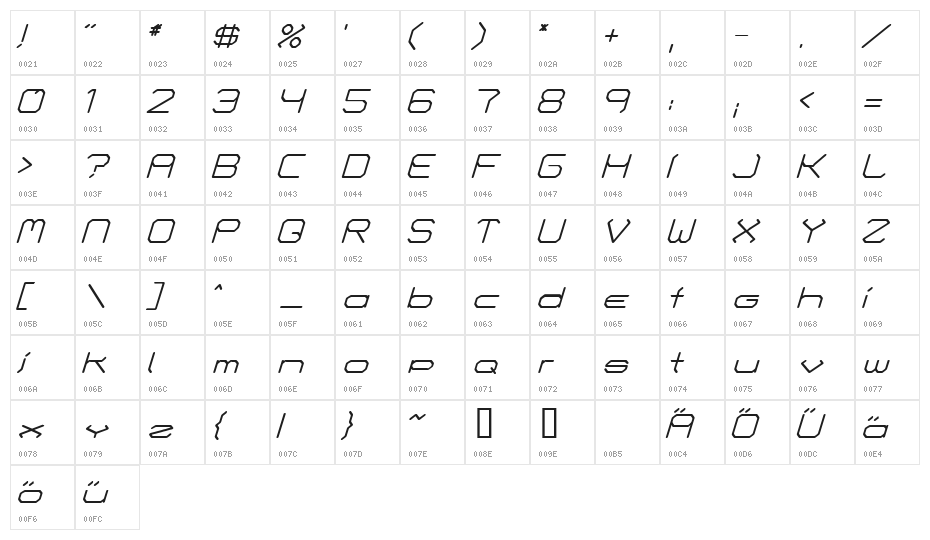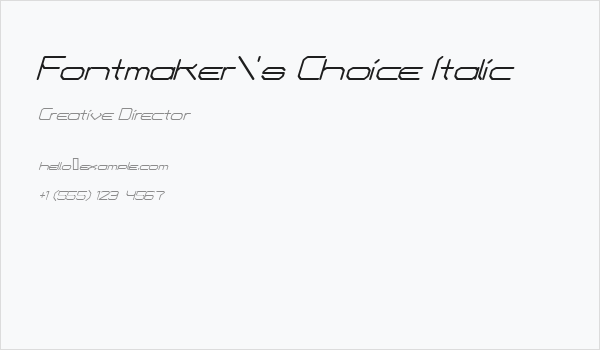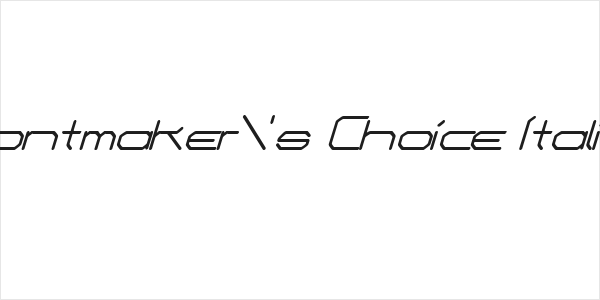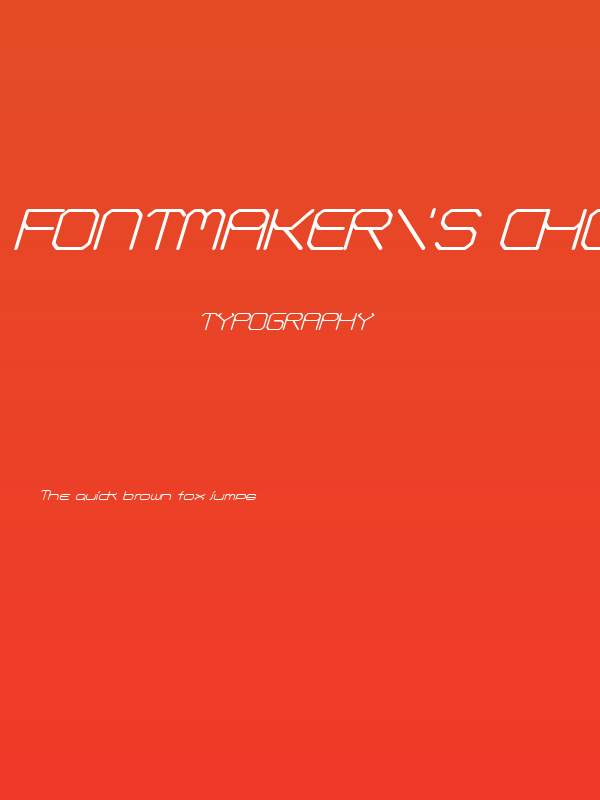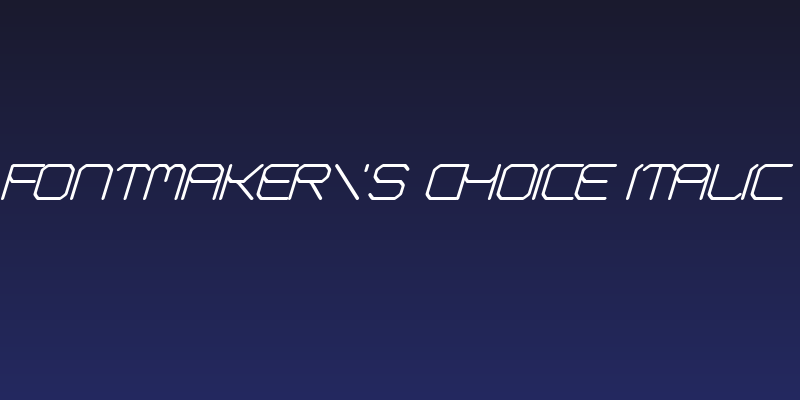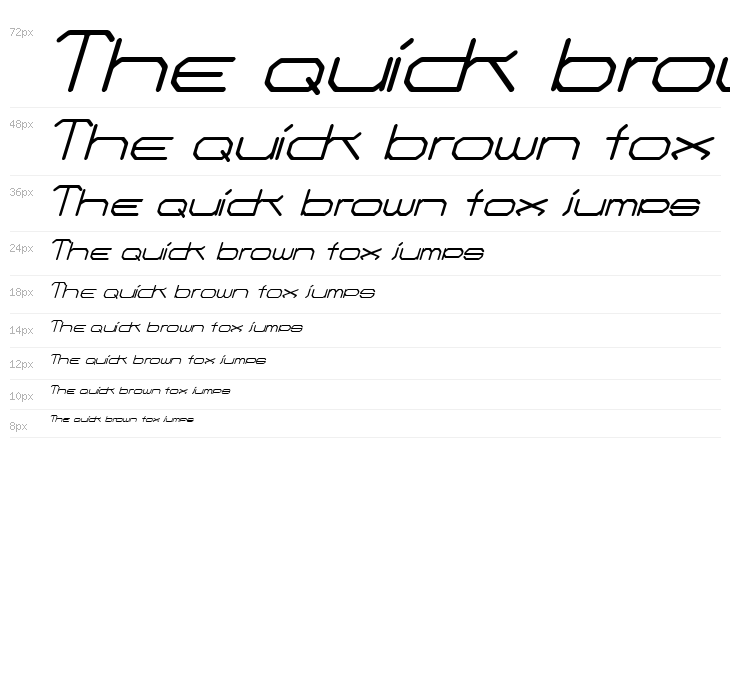
Fontmaker's Choice Italic Font
Fontmaker's Choice Italic Description
This font features a modern, angular design with a distinct italic slant, giving it a dynamic and futuristic appearance. The characters are composed of straight lines and sharp angles, creating a geometric and technical feel. The uppercase and lowercase letters maintain a consistent style, with the lowercase letters slightly more rounded. The numerals and special characters follow the same angular theme, ensuring uniformity across the font. The overall look is sleek and contemporary, suitable for projects that require a cutting-edge aesthetic.
| Overall Style | Futuristic, Geometric |
| Proposed Projects | Ideal for technology branding, sci-fi themed designs, video game interfaces, and modern advertising. |